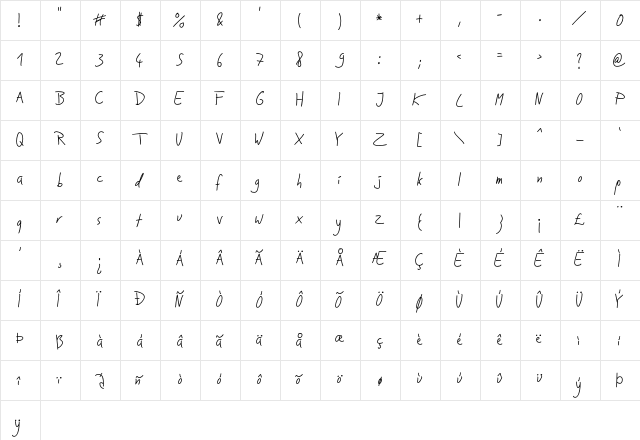
Jakobs Handwriting Regular
Design Context for Jakobs Handwriting Typeface
Jakobs Handwriting flows with the natural rhythm of handwritten lettering, making it ideal for designs that call for warmth and personal expression.
Font Pairing: Combine Jakobs Handwriting with a simple geometric sans for maximum contrast — the tension between flowing curves and clean structure is a classic typographic pairing.
Pro Tip: Pair Jakobs Handwriting with a clean sans-serif for supporting text. The contrast between fluid script and geometric structure creates an elegant typographic hierarchy.